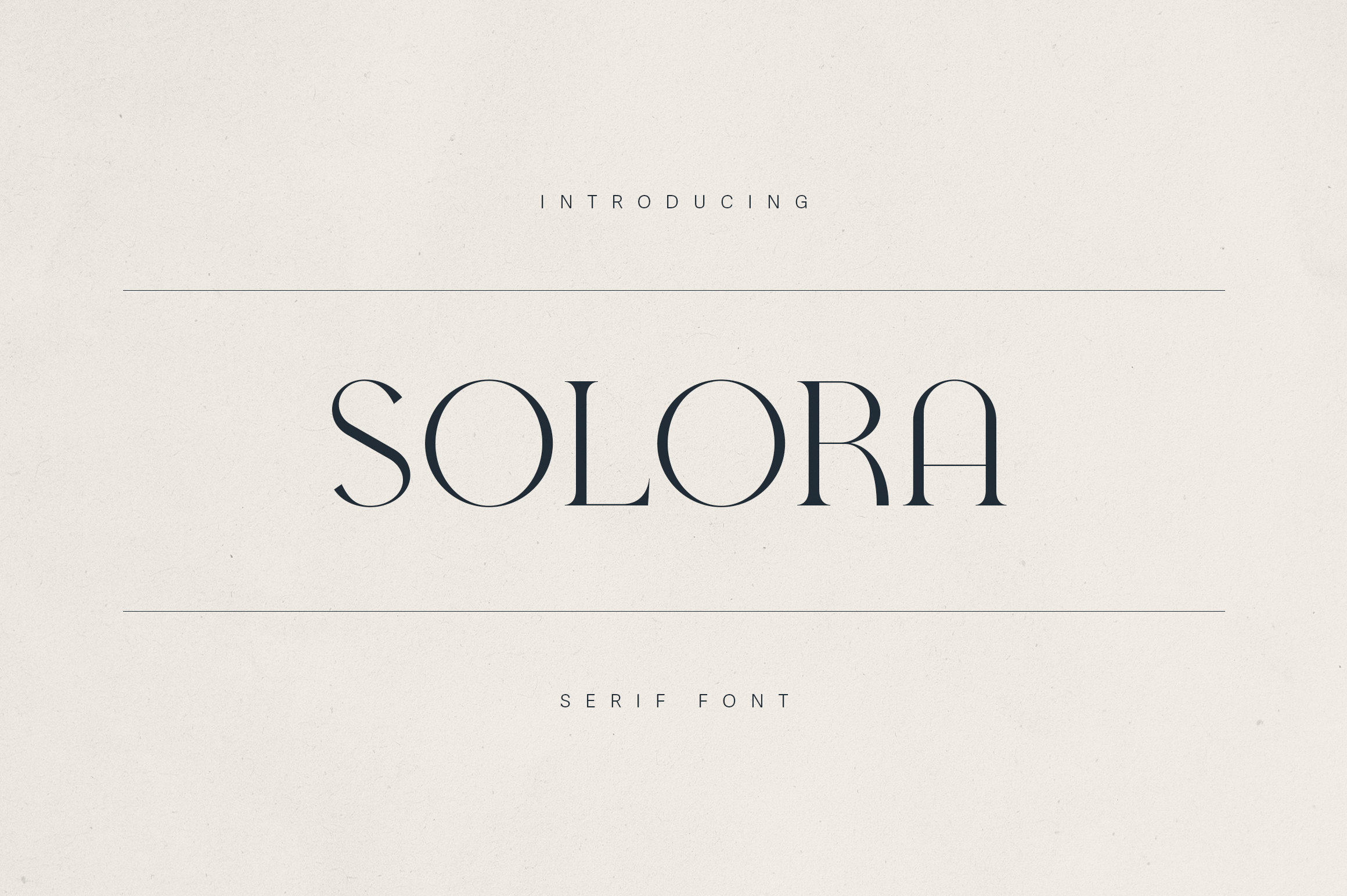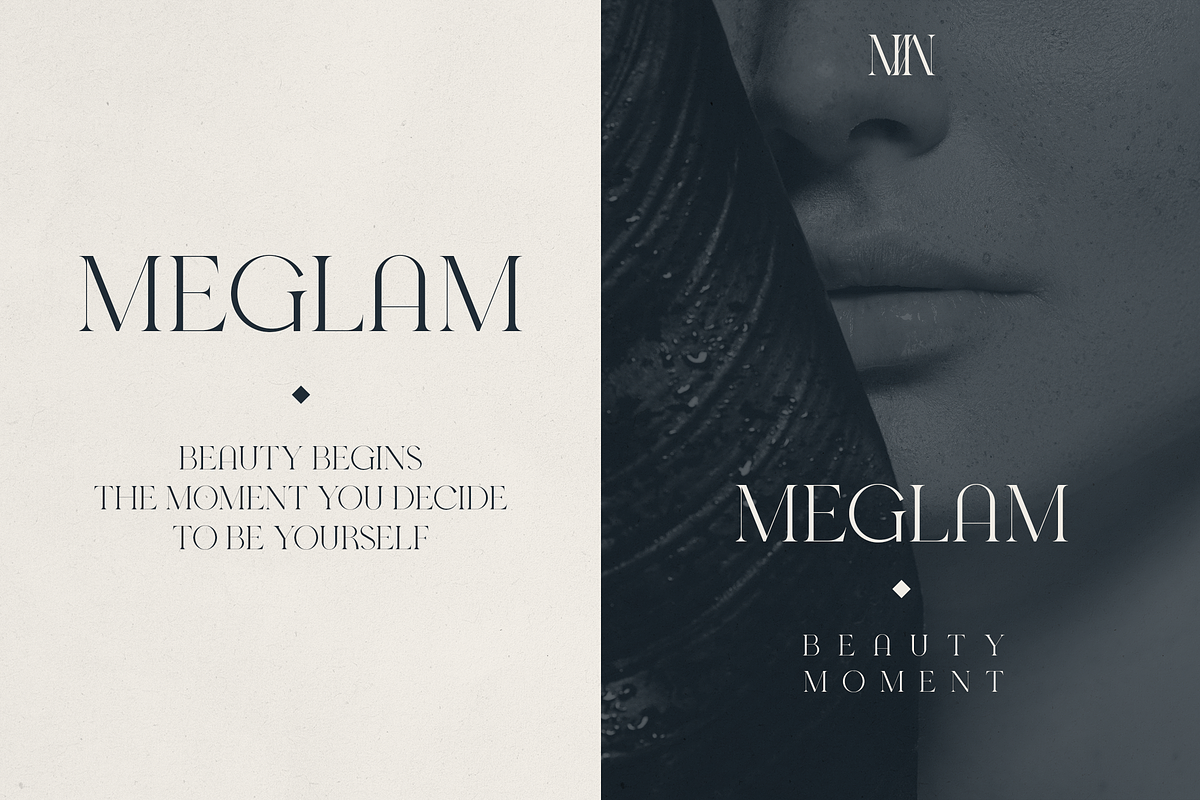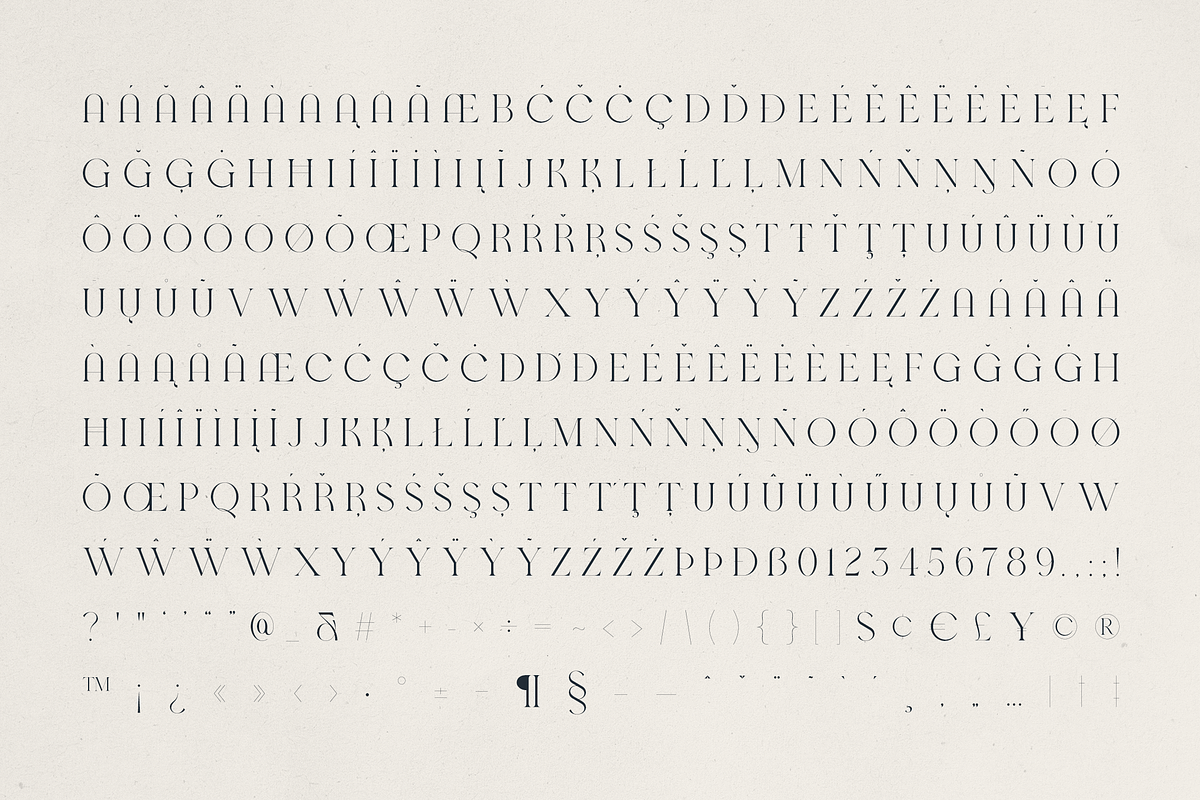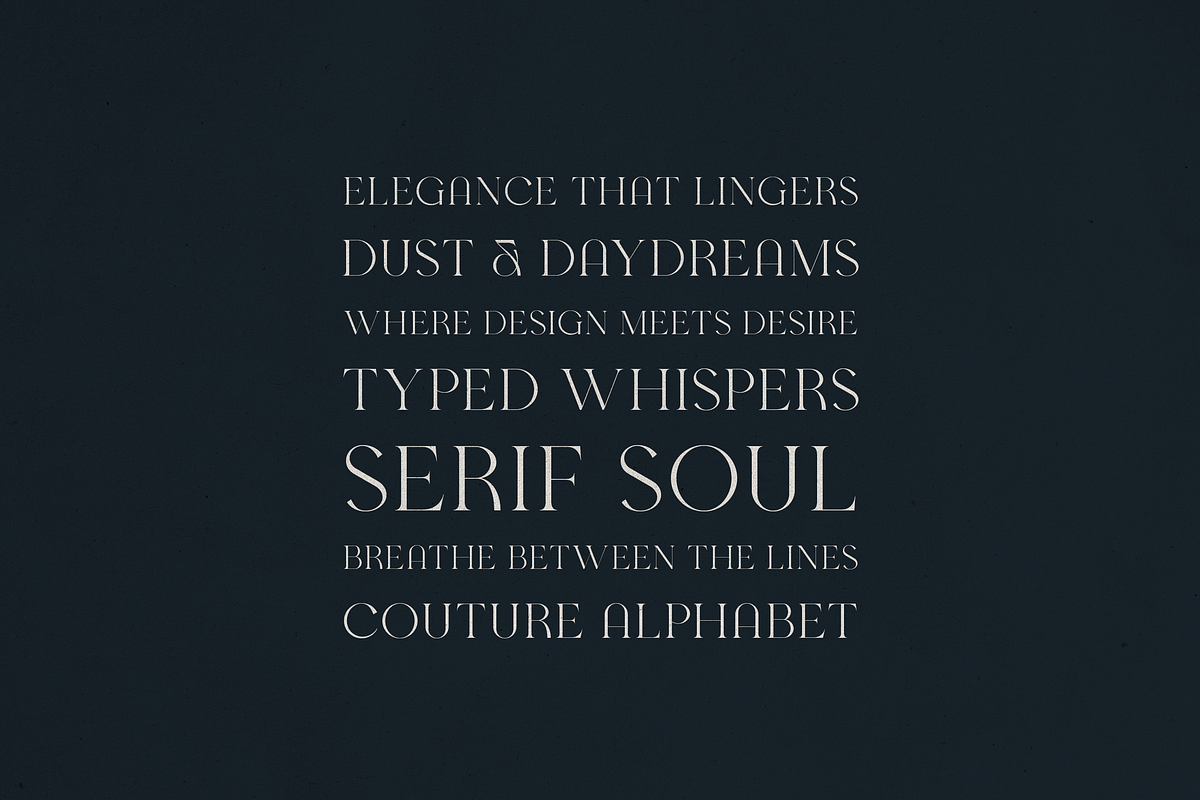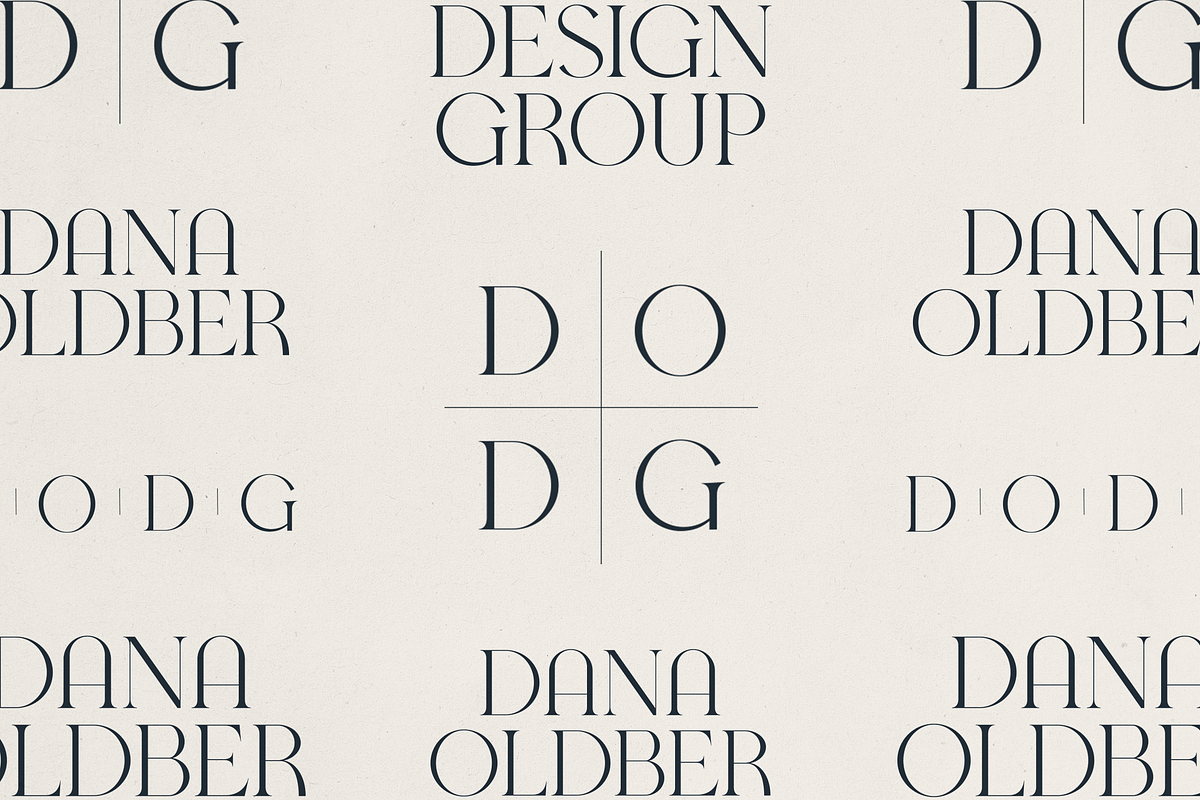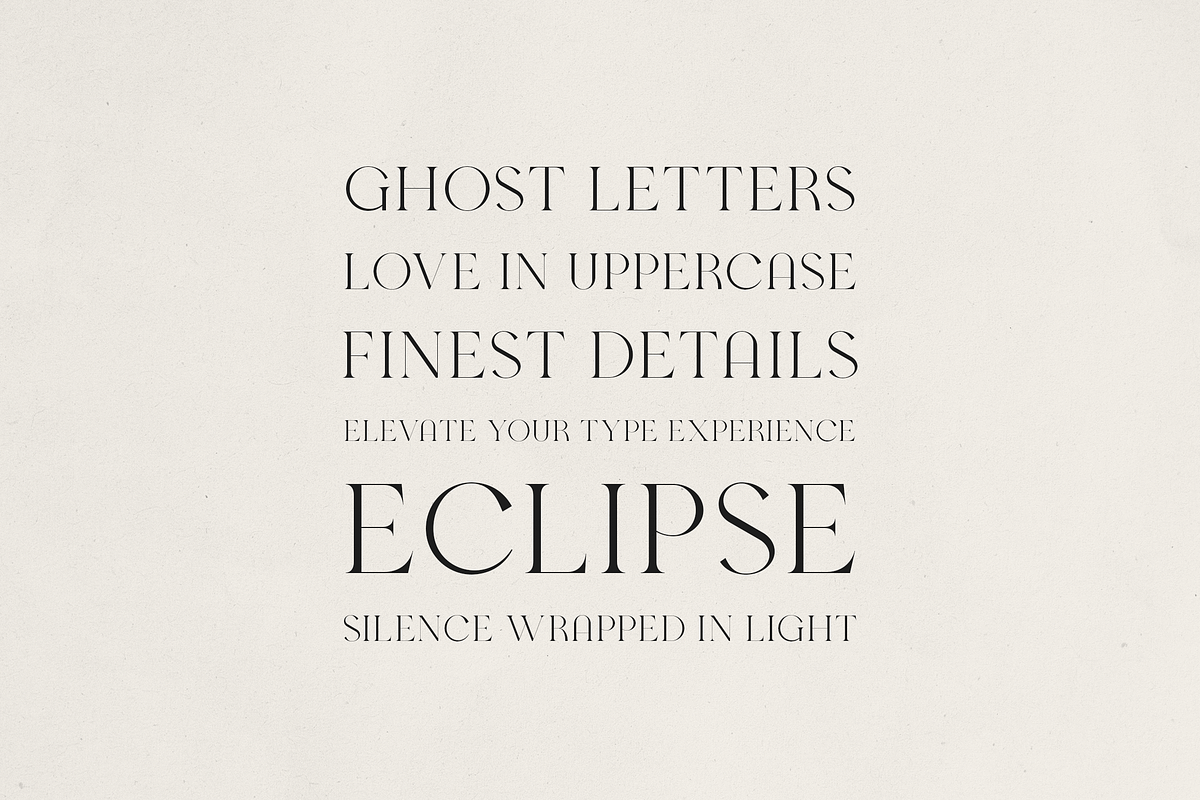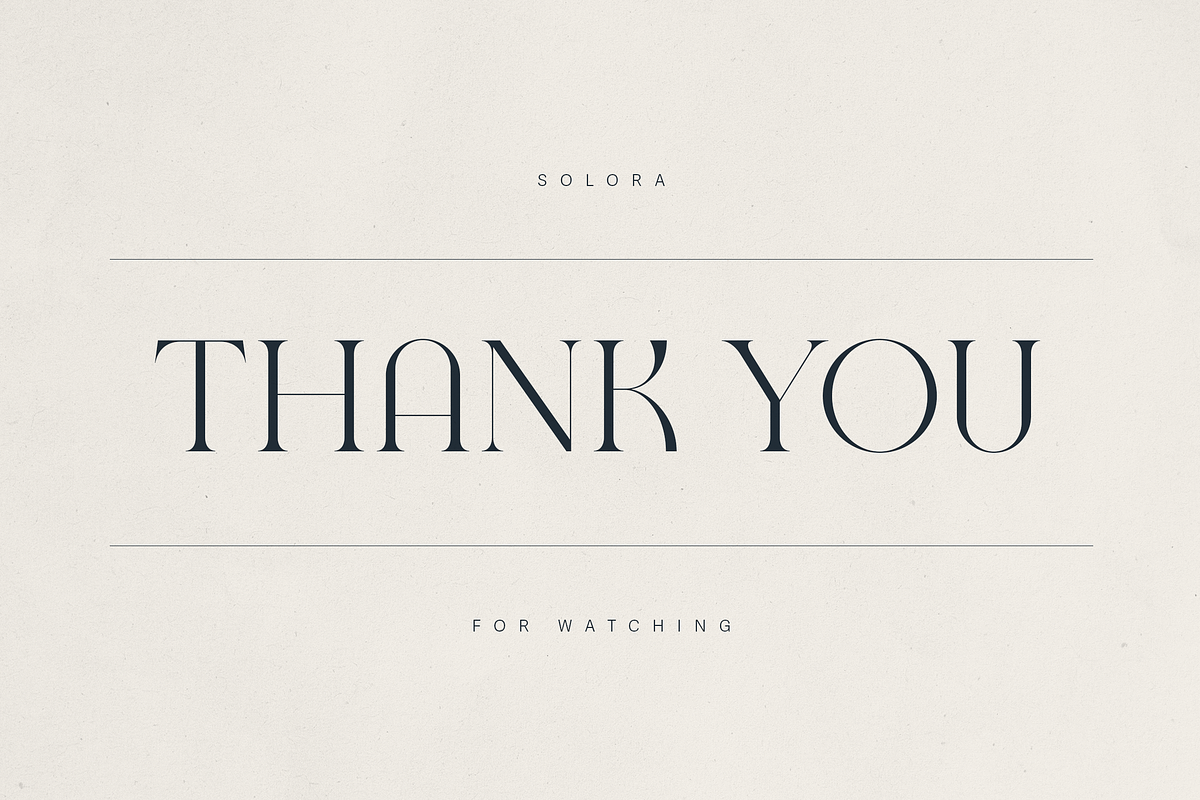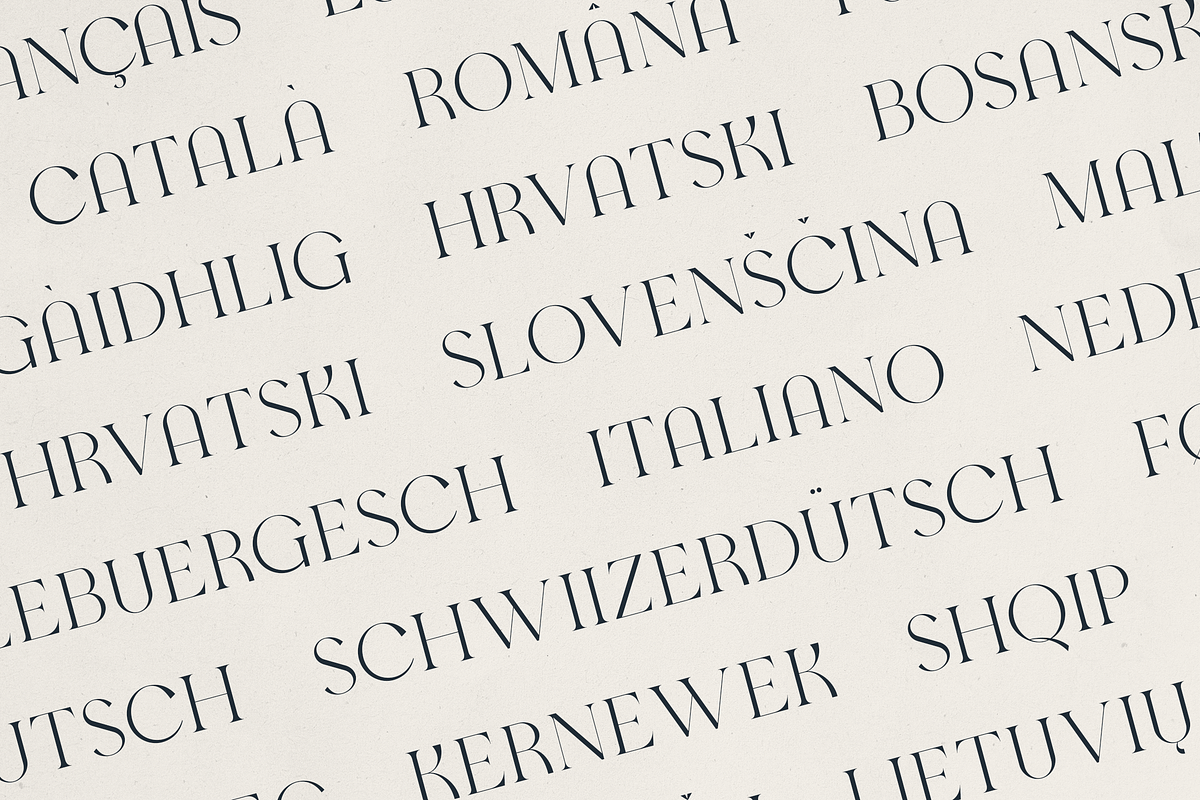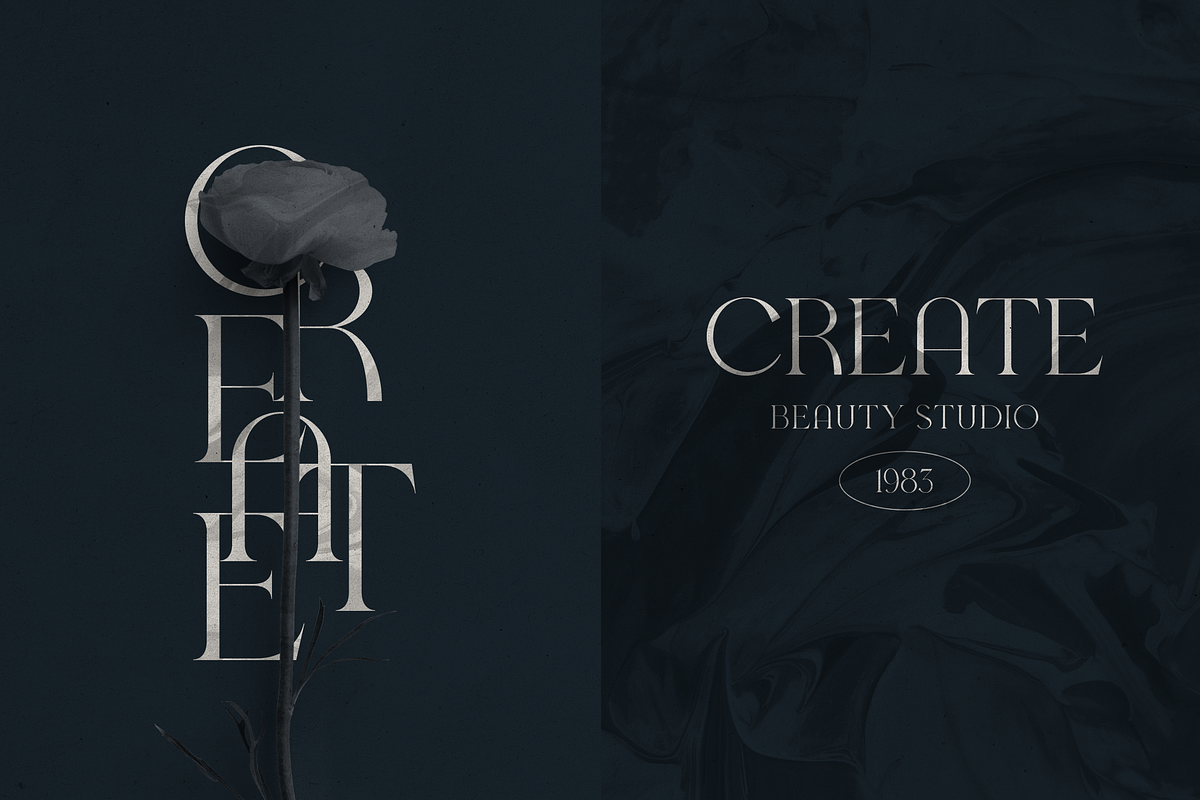
Solora – Elegant Modern Serif Font
Introducing Solora, a timeless and elegant serif font designed to bring sophistication and style to any project. With its high-contrast strokes, graceful curves, and couture-inspired letterforms, Solora is perfect for designers seeking a refined typeface with a modern twist.
Crafted with attention to detail, Solora’s sleek serifs and tall proportions exude confidence and luxury—making it the ideal choice for branding, editorial layouts, packaging design, fashion campaigns, and high-end beauty promotions.
Whether you're creating a luxury logo, stylish magazine spread, or a chic invitation, Solora adds instant elegance and a touch of drama. Its versatile structure allows it to shine in both headlines and refined body text.
- Elegant, modern serif style
- High-contrast strokes for dramatic impact
- Smooth curves and sharp serifs
- Perfect for luxury branding & editorial design
- Great for logos, magazines, packaging & invitations
- Supports 85 languages
- Fashion & beauty branding
- Editorial & magazine design
- Wedding & luxury invitations
- Social media graphics
- Minimalist packaging
- High-end logos & headlines
Upgrade your design game with Solora Serif Font—where modern beauty meets classic elegance.